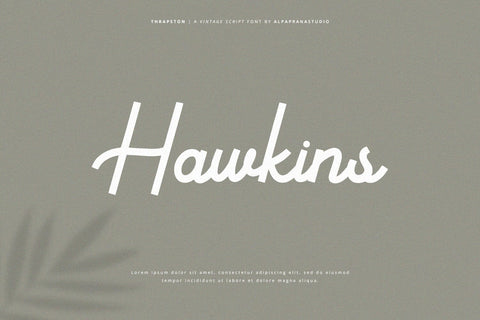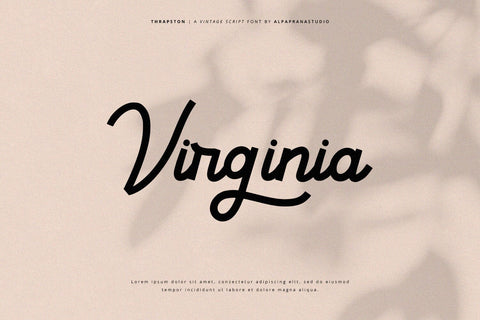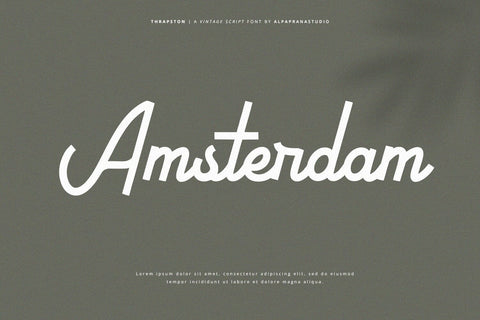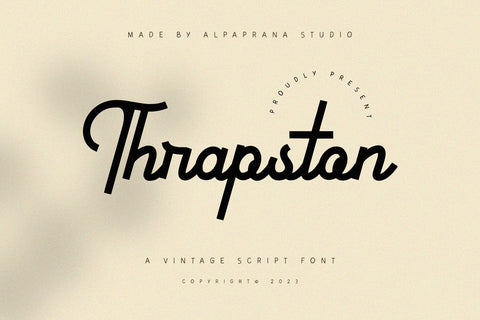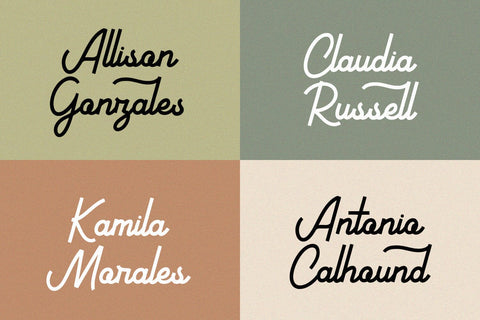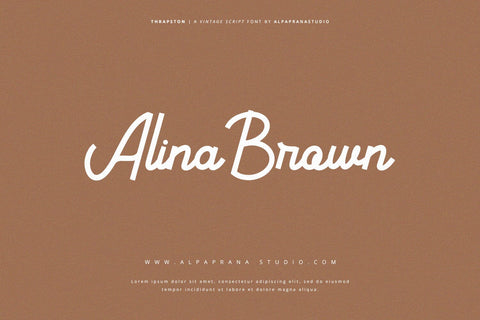
Thrapston - Vintage Script Font
Thrapston is a vintage script font with vintage and retro feels. It will be perfectly used for Branding, Logo Design, Lettering, Logotype, Clothing, Poster, magazine, packaging, posters, shopping bags, t-shirts, book covers, photography, special events and other design project.